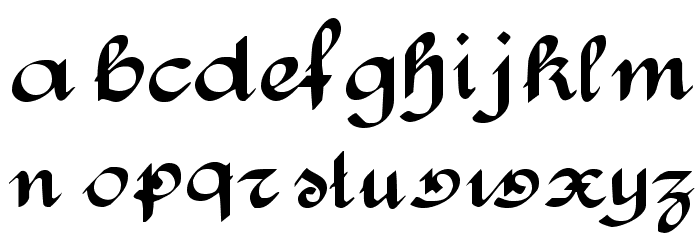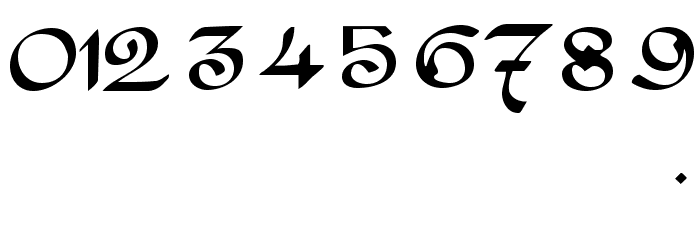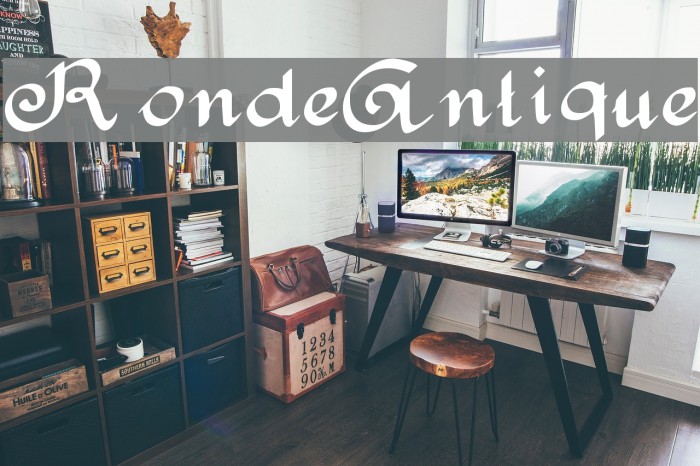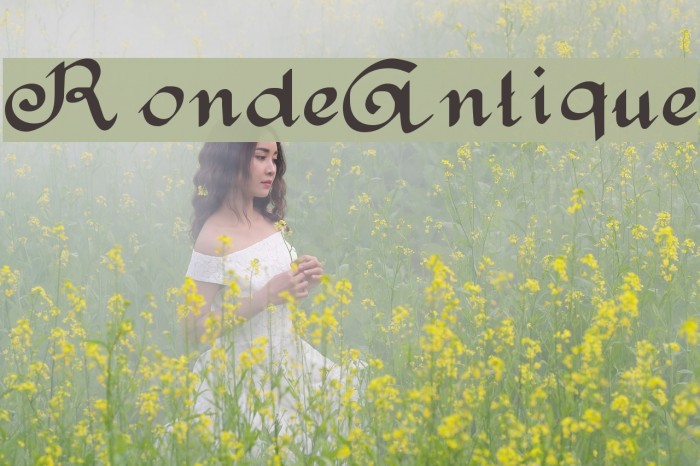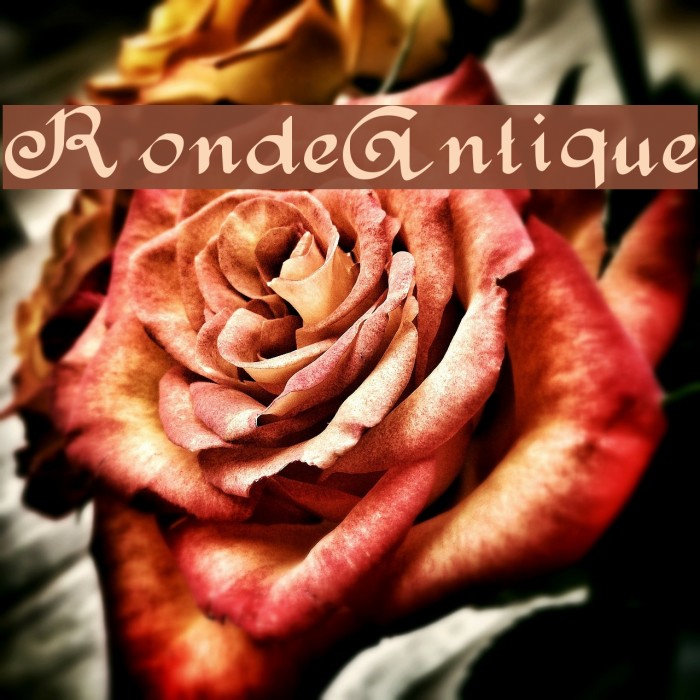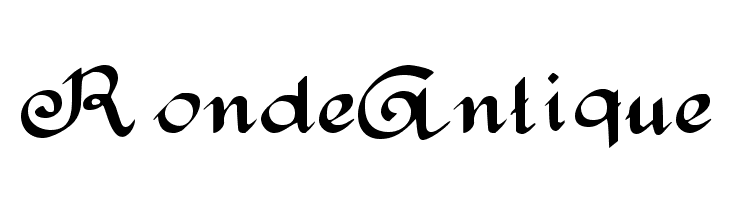
RondeAntique Font
This font exhibits a classic and elegant style, reminiscent of traditional calligraphy with a modern twist. The characters are crafted with smooth, flowing curves and intricate details that give it a sophisticated and artistic appearance. The uppercase letters are particularly ornate, featuring elaborate swirls and loops that add a touch of grandeur. The lowercase letters maintain a consistent style, with a slightly more subdued elegance. The numerals are bold and clear, ensuring readability while maintaining the overall aesthetic. This font is perfect for projects that require a touch of class and refinement, such as invitations, certificates, or branding materials.
An elegant, calligraphy-inspired font with ornate and flowing characters.
- Proposed Projects: Ideal for wedding invitations, luxury branding, certificates, and artistic projects.
- Overall Style: Classic